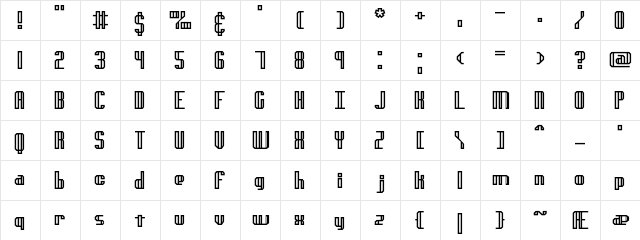
Complete genotype H BRK Normal glyph index. Displaying only characters natively supported by genotype H BRK Normal font.
genotype H BRK is a composed and adaptable typeface that performs quietly and consistently across a wide range of design contexts.